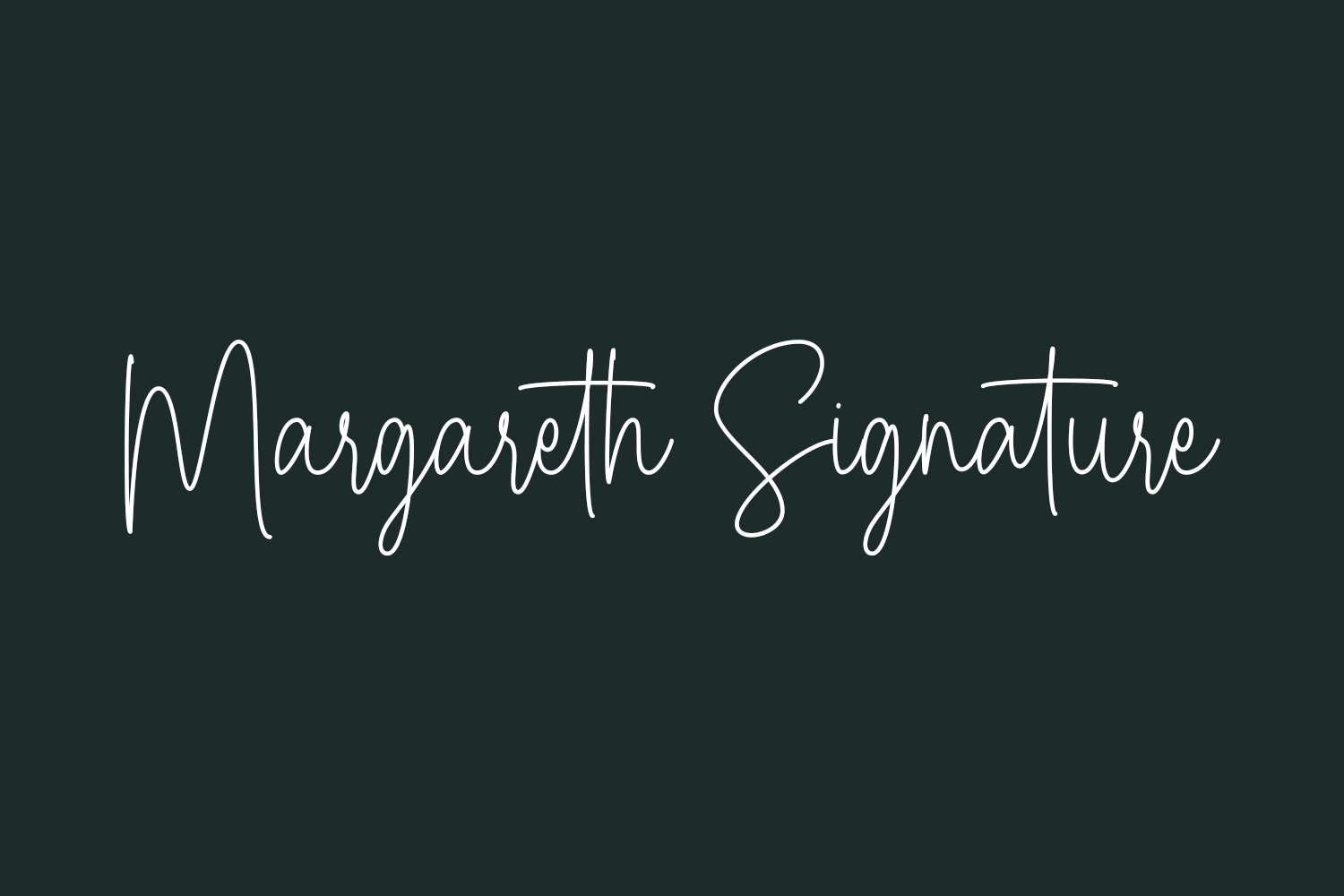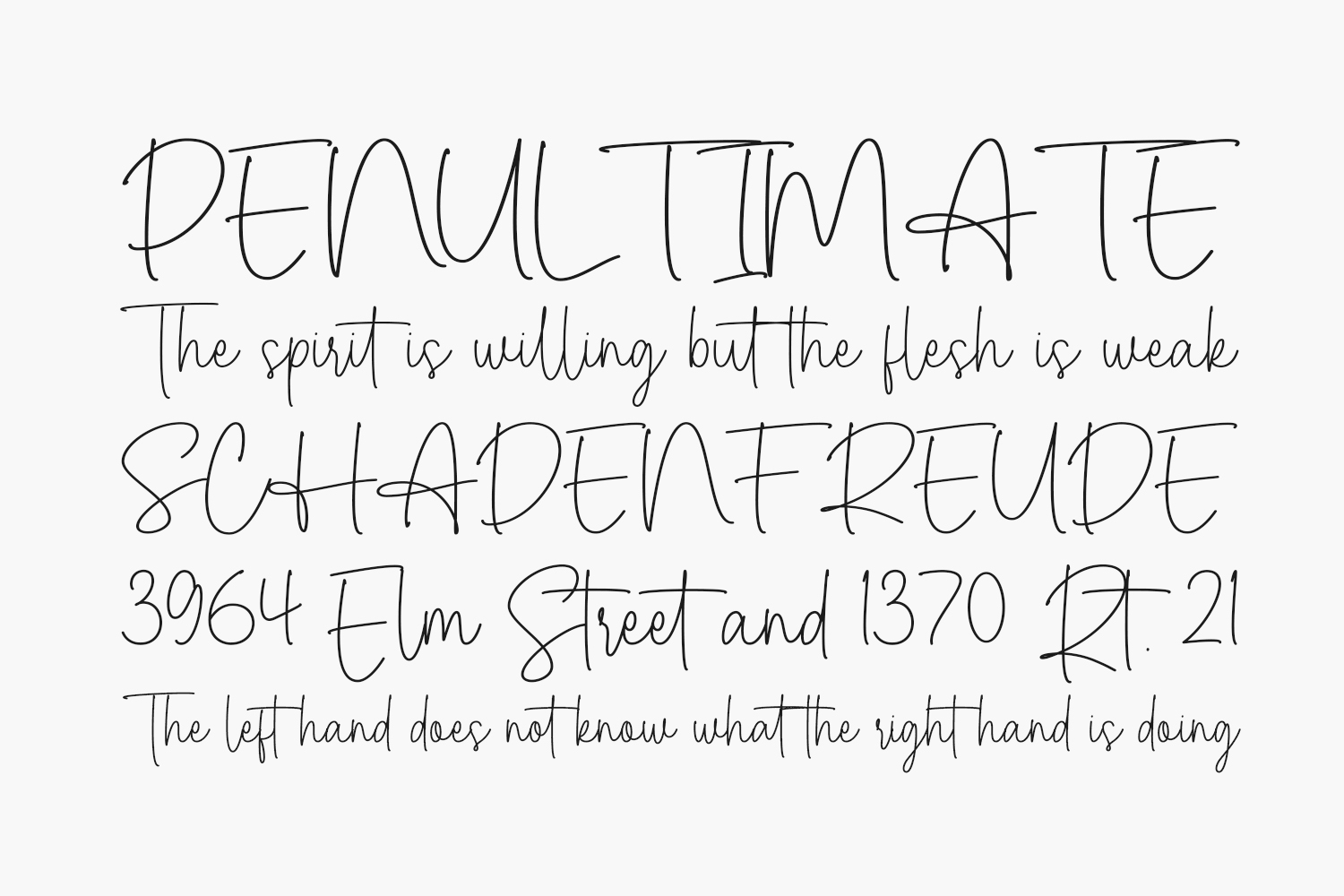
Margareth Signature Free Font is a premium handwritten font, suitable for any projects such as logos, branding projects, homeware designs, product packaging, mugs, quotes, posters, shopping bags, t-shirts, book covers, name cards, invitation cards, greeting cards, labels, photography, watermarks, special events, and all your other luxury projects that need a premium signature touch. Margareth Signature Free Font is free for personal use only. Please purchase the full version for commercial use.
Designed by Pen Culture